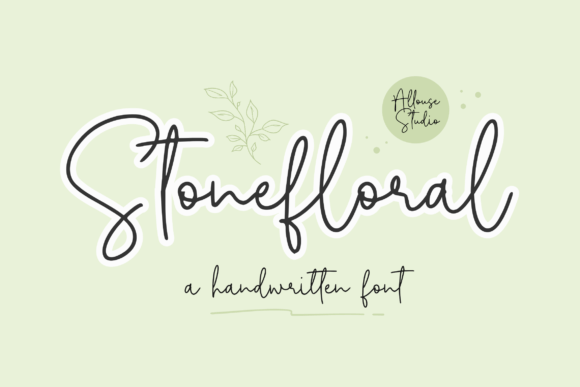
Embark on a Typographic Journey with Stonefloral: A Script Font that Speaks Volumes
In the realm of visual communication, fonts hold the power to transform ordinary words into captivating expressions. Introducing Stonefloral, a handcrafted script font that elevates your designs to extraordinary heights. Created by the talented allouse.studio, Stonefloral is more than just a font; it's an artistic masterpiece that breathes life into your creative endeavors.
Step into the world of Stonefloral and discover a font that dances across the page with its enchanting curves and graceful strokes. Its meticulously crafted characters exude a touch of elegance and charm, making it the perfect choice for a wide range of design projects. Whether you're crafting product packaging, branding projects, or designing social media posts, Stonefloral adds a touch of sophistication and uniqueness to every project.
Unleash Your Creativity with Stonefloral: The Ultimate Font for Large Signs
In the world of signage, size matters. Captivating large signs demand fonts that command attention and leave a lasting impression. Stonefloral rises to the challenge, delivering exceptional legibility and visual impact even at colossal dimensions. Its bold, sweeping strokes ensure that your message will be seen and remembered.
Imagine the impact of a storefront sign adorned with Stonefloral's elegant characters, beckoning customers inside with its inviting charm. Or envision the grandeur of a billboard along a bustling highway, its message emblazoned in Stonefloral's captivating script, leaving a trail of intrigue and curiosity in its wake.
Embellish Your Designs with Stonefloral: The Perfect Font for Magazines and Social Media
In the competitive world of magazines and social media, standing out from the crowd is essential. Stonefloral provides the perfect solution, offering a distinctive and eye-catching font that sets your content apart from the mundane. Its flowing lines and intricate details add a touch of sophistication and allure to your words, making them irresistible to your audience.
Picture the elegance of a magazine spread adorned with Stonefloral's graceful script, transporting readers to a world of luxury and refinement. Or envision the allure of a social media post adorned with Stonefloral's captivating characters, capturing the attention of followers and leaving them craving more.
Celebrate Life's Special Moments with Stonefloral: The Ideal Font for Weddings and Invitations
Life's special moments deserve a touch of magic, and Stonefloral delivers just that. Its delicate strokes and timeless beauty make it the perfect choice for wedding invitations, save-the-dates, and other special occasion stationery. Imagine the joy of receiving an invitation adorned with Stonefloral's enchanting script, hinting at the elegance and romance of the upcoming event.
Create a Lasting Impression with Stonefloral: The Font that Speaks Above the Background
In a world saturated with visual noise, it's more important than ever to make a statement that cuts through the clutter. Stonefloral possesses the power to do just that, with its bold and distinctive characters that demand attention. Whether you're designing posters, flyers, or any other marketing material, Stonefloral ensures that your message will be seen and heard above the din.
Experience the Stonefloral Difference: A Font that Inspires and Enchants
Stonefloral is more than just a font; it's an experience. Its carefully crafted characters, its flowing lines, and its timeless beauty come together to create a font that inspires creativity and ignites the imagination. With Stonefloral at your disposal, you'll find yourself creating designs that captivate, engage, and leave a lasting impression.
Unleash the power of Stonefloral today and embark on a typographic journey that will transform your creative endeavors into masterpieces. Let your words dance across the page, leaving a trail of beauty and intrigue wherever they go.